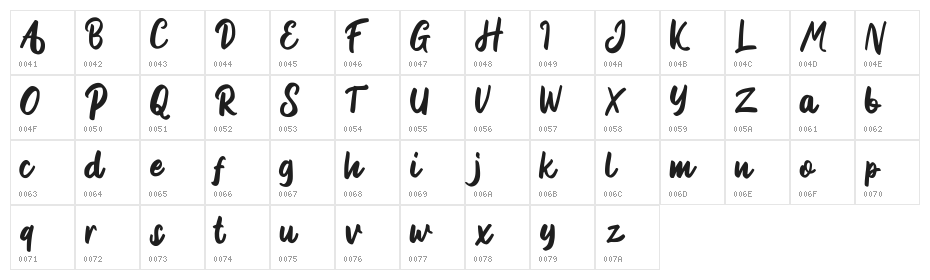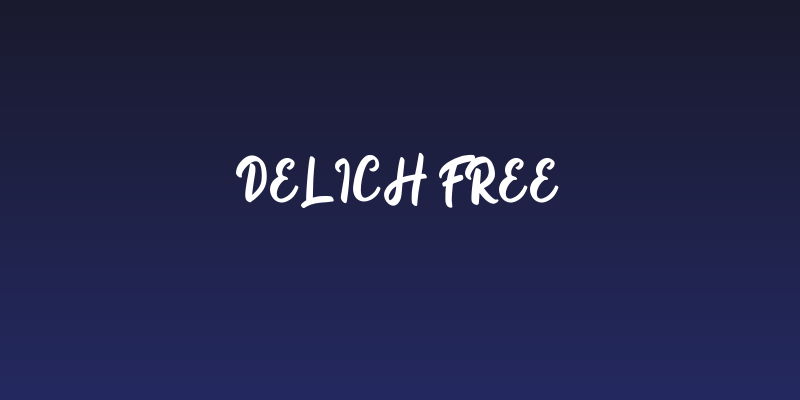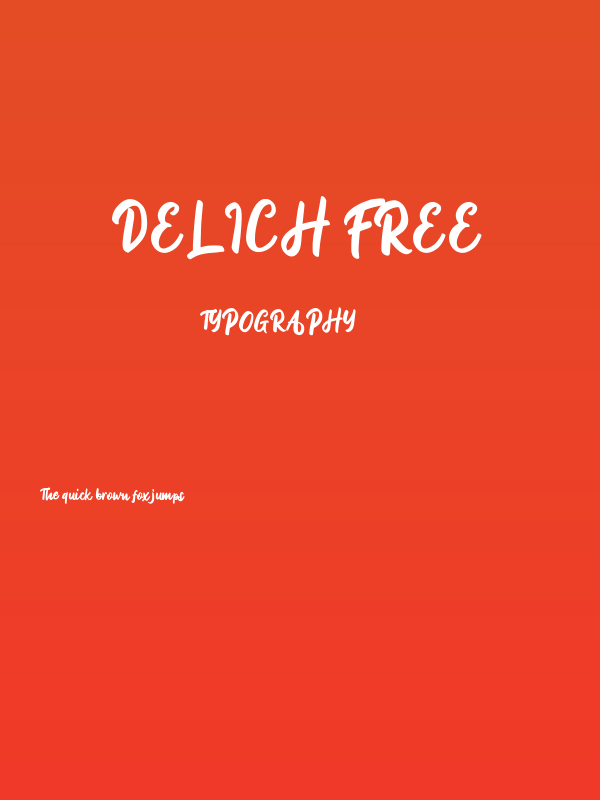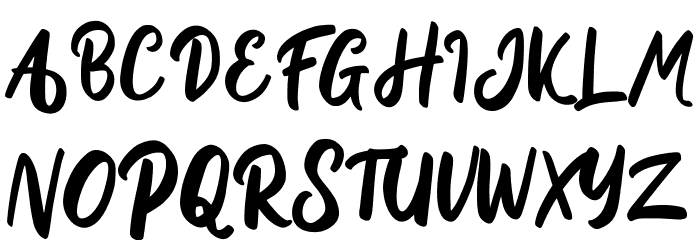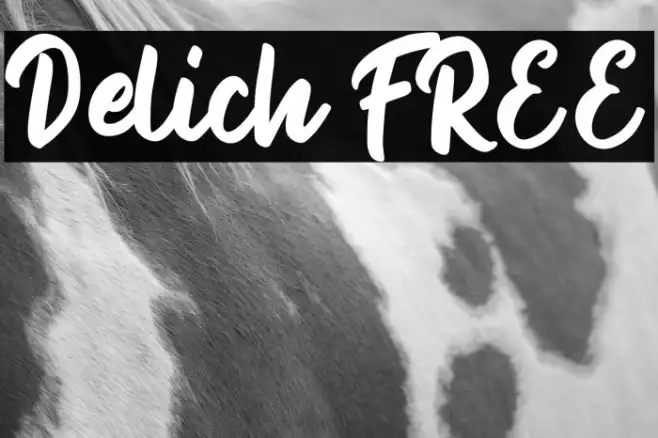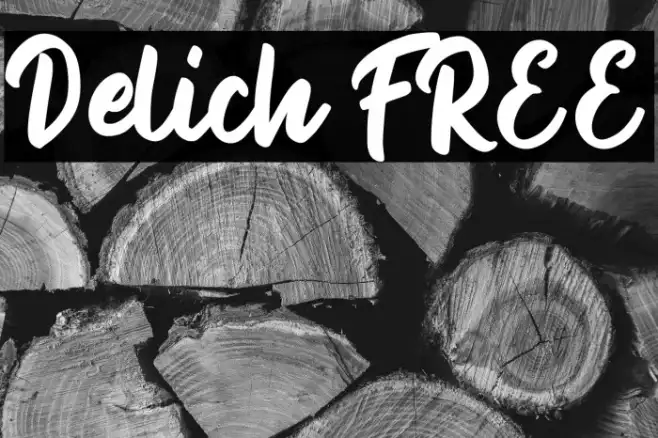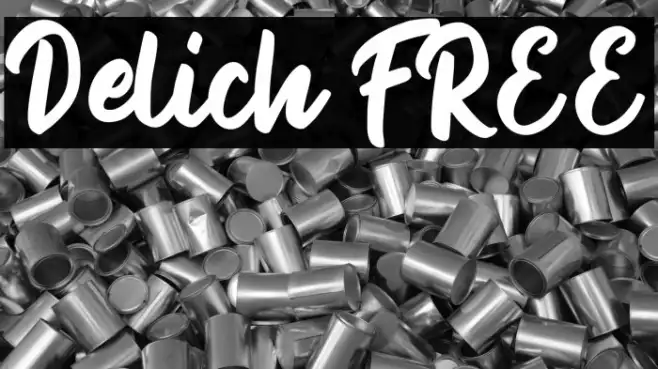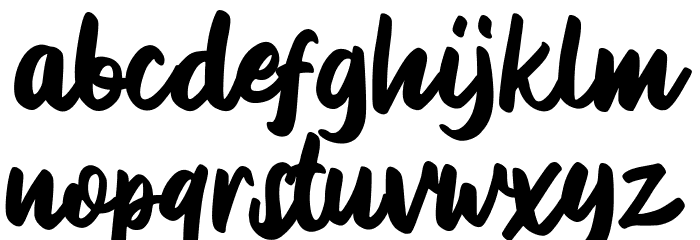
Delich FREE Font
Delich FREE Description
This font features a bold, handwritten style with a playful and energetic appearance. The letters are slightly slanted, giving a dynamic and informal feel. The strokes are thick and consistent, providing a strong visual impact. The uppercase and lowercase letters are well-balanced, with rounded edges that add to the font's approachable and friendly character. The overall design is cohesive, making it suitable for projects that require a personal touch or a casual vibe. The font includes a full set of uppercase and lowercase letters, numerals, and a selection of special characters, ensuring versatility in various design applications.